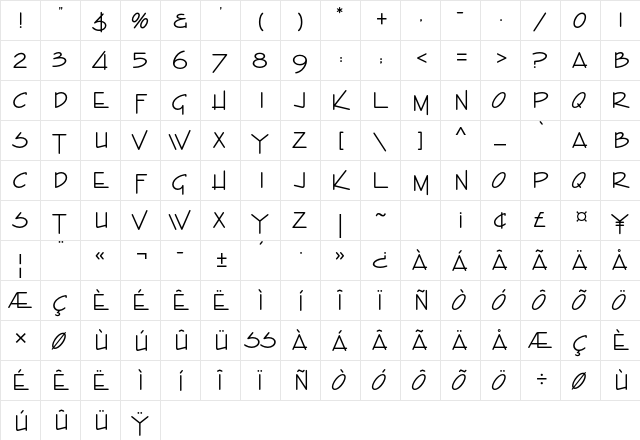
Enviro Std Regular
| Designer | F. Scott Garland |
Design Context for Enviro Std Typeface
Enviro Std takes a measured approach to typography — its balanced proportions and neutral character make it a reliable workhorse for both digital and print work.